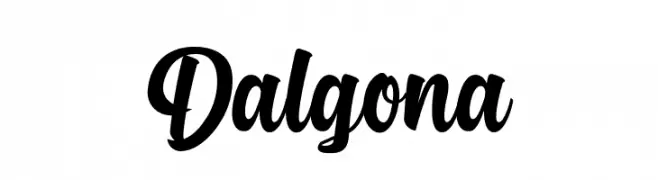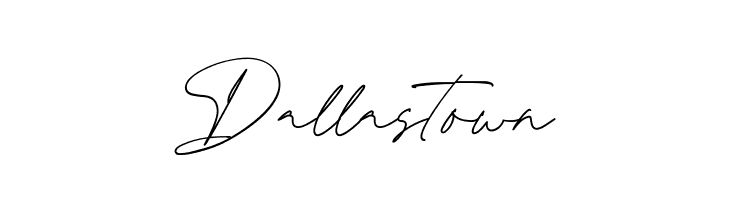
A modern, clean sans-serif font with uniform stroke width and excellent readability.
A sleek, modern italic font with smooth curves and clean lines.
A clean, modern sans-serif font with a semi-bold weight and balanced proportions.
A sleek, semi-bold italic font with a modern and elegant design.
A bold, cursive font with elegant loops and swashes.
A bold, brushstroke font with an energetic and artistic style.
A playful and elegant handwritten script font with bold, whimsical flourishes.
A playful, handwritten font with a whimsical and friendly appearance.
A playful and flowing script font with elegant curves and smooth connections.
A lively handwritten font with expressive, fluid strokes and dynamic letterforms.
A playful and flowing script font with smooth, rounded edges and elegant curves.
A playful, handwritten-style font with bold, rounded strokes and a dynamic appearance.
A playful, hand-drawn font with a whimsical and informal style.
A bold, playful font with a three-dimensional shadow effect.
A bold, textured font with a rugged, winter-themed design.
A lively handwritten font with fluid, dynamic strokes and a casual vibe.
A playful, hand-drawn font with a whimsical and friendly style.
A tall, narrow, and elegant font with consistent strokes and a modern aesthetic.
A tall, slender, and elegant font with a whimsical touch.
( Fonts by Phantom Studio - Phantom Creative Studio - Personal-use only. For commercial use please contact owner. )
A playful handwritten font with smooth, flowing strokes and a casual vibe.
( Fonts by sronstudio - Yusron Billah - Personal-use only. For commercial use please contact owner. )
A lively, expressive handwritten font with fluid, dynamic strokes.
( Fonts by Sancrea Studio - Ade Santani - Personal-use only. For commercial use please contact owner. )
A bold, playful font with a whimsical, hand-drawn style.
( Fonts by Letterative Studio - Personal-use only. For commercial use please contact owner. )
A bold, playful script font with a hand-drawn, whimsical style.
( Fonts by Balpirick Studio - https://www.creativefabrica.com/designer/balpirick/ref/308299/ - Personal-use only. For commercial use please contact owner. )
A modern, elegant script font with a flowing, handwritten style.
( Fonts by Misti Hammers - mistifonts.com - Personal-use only. For commercial use please contact owner. )
A whimsical and elegant script font with decorative swirls.
A playful, casual handwritten font with smooth, flowing lines.
A playful, modern font with rounded, elongated letterforms and consistent stroke width.
A bold, playful font with a 3D bubble-like design and consistent rounded characters.
A bold, three-dimensional outline font with a wireframe effect.
A geometric, wired font with a futuristic and decorative style.